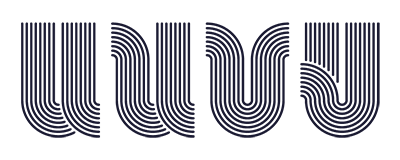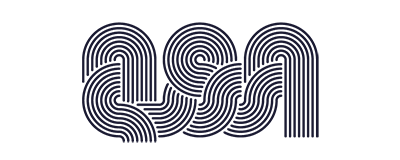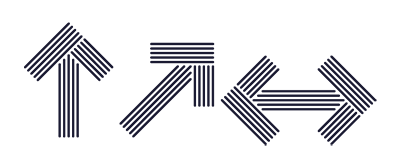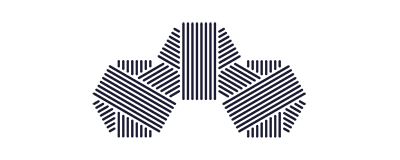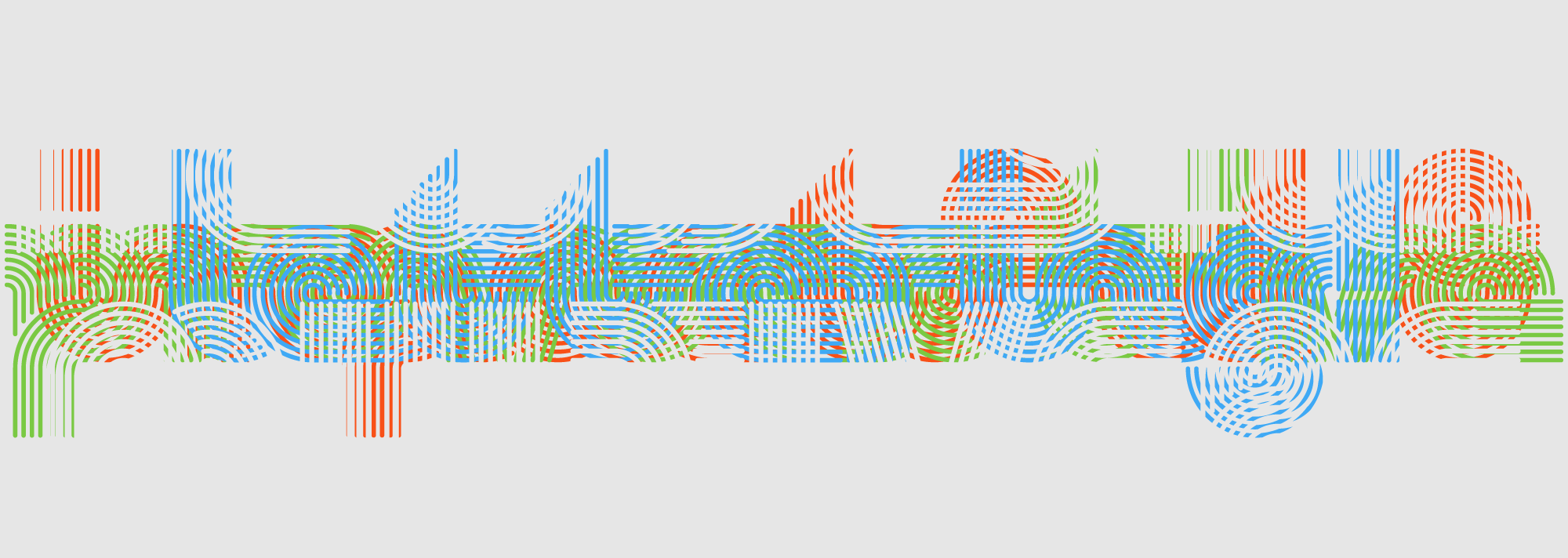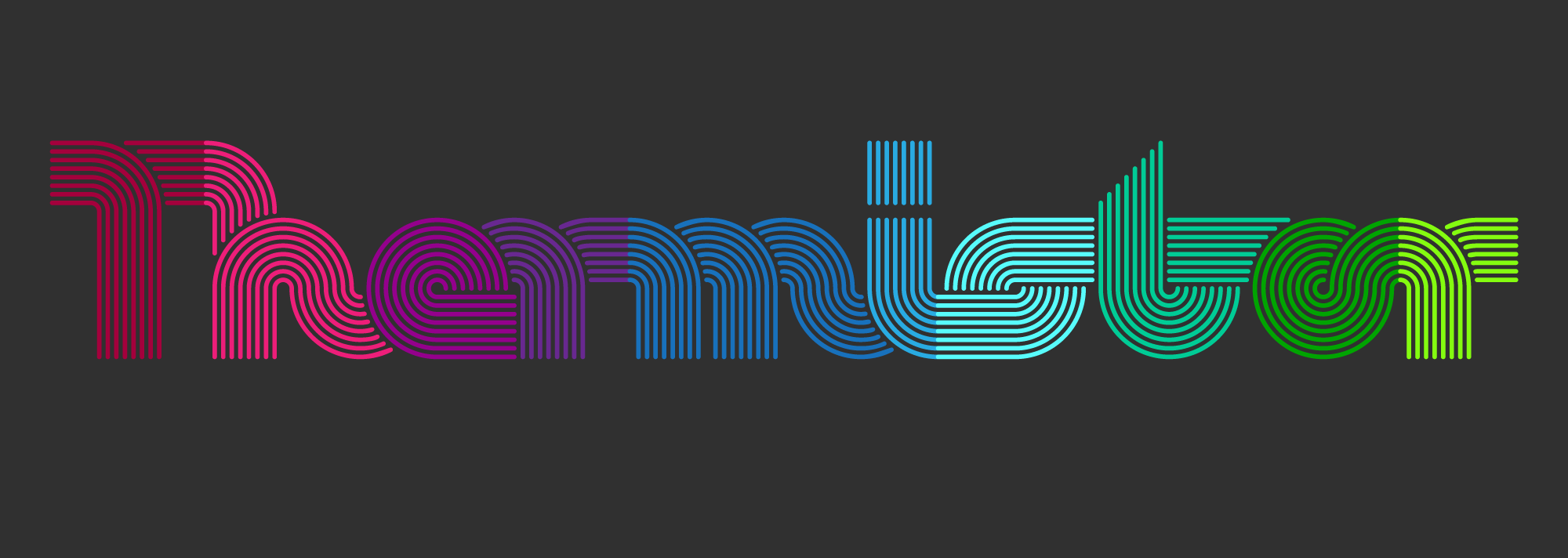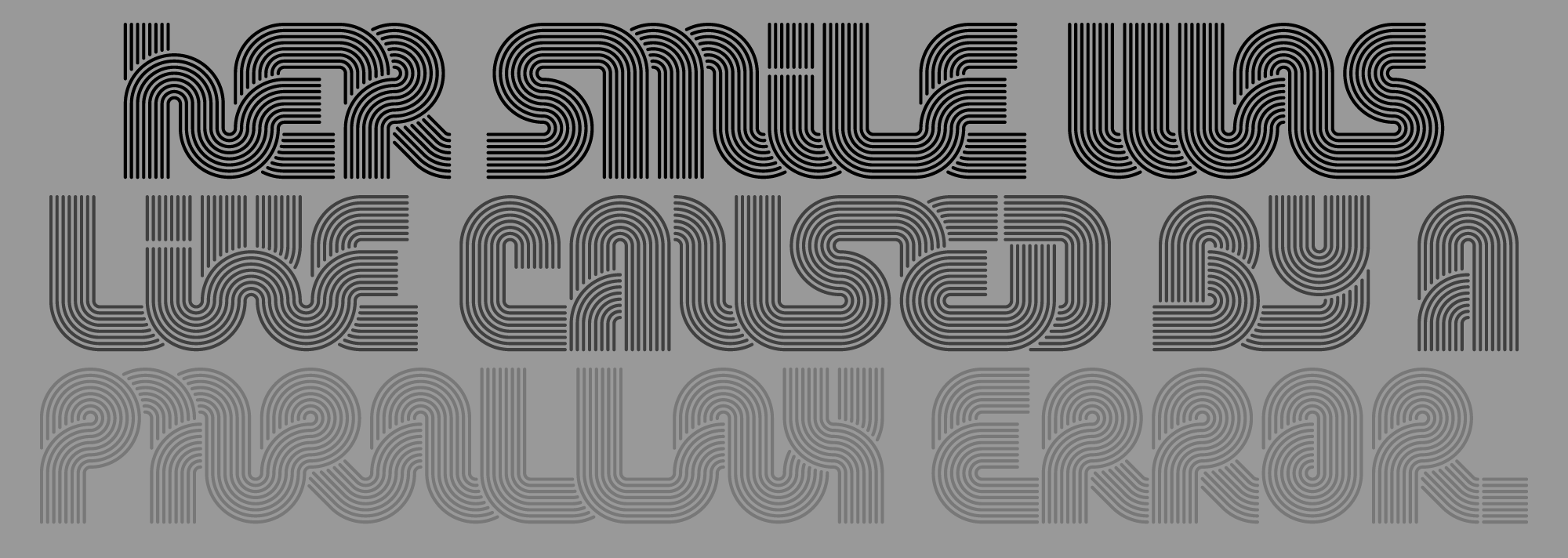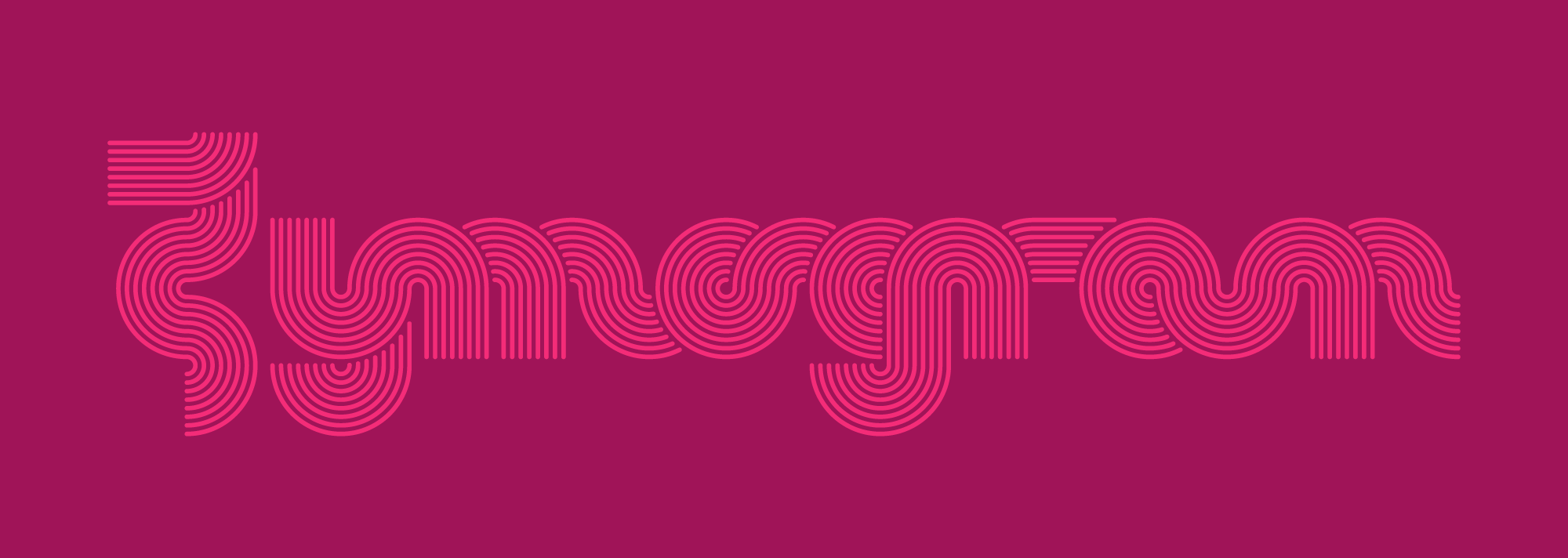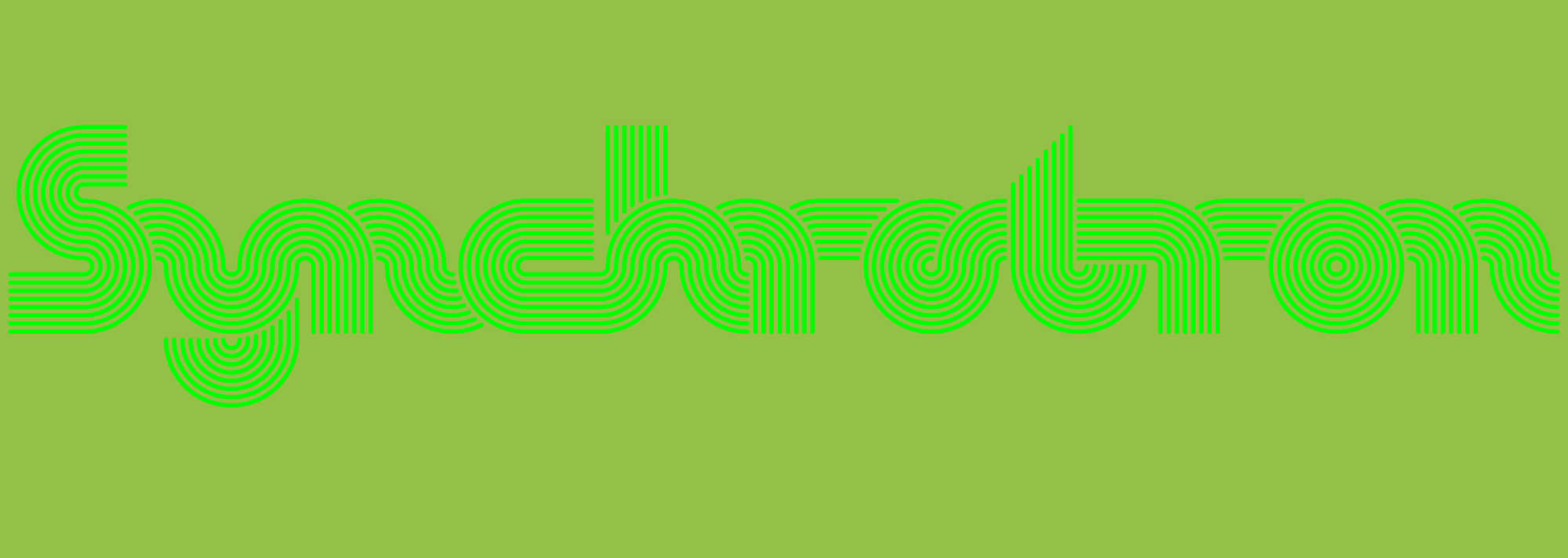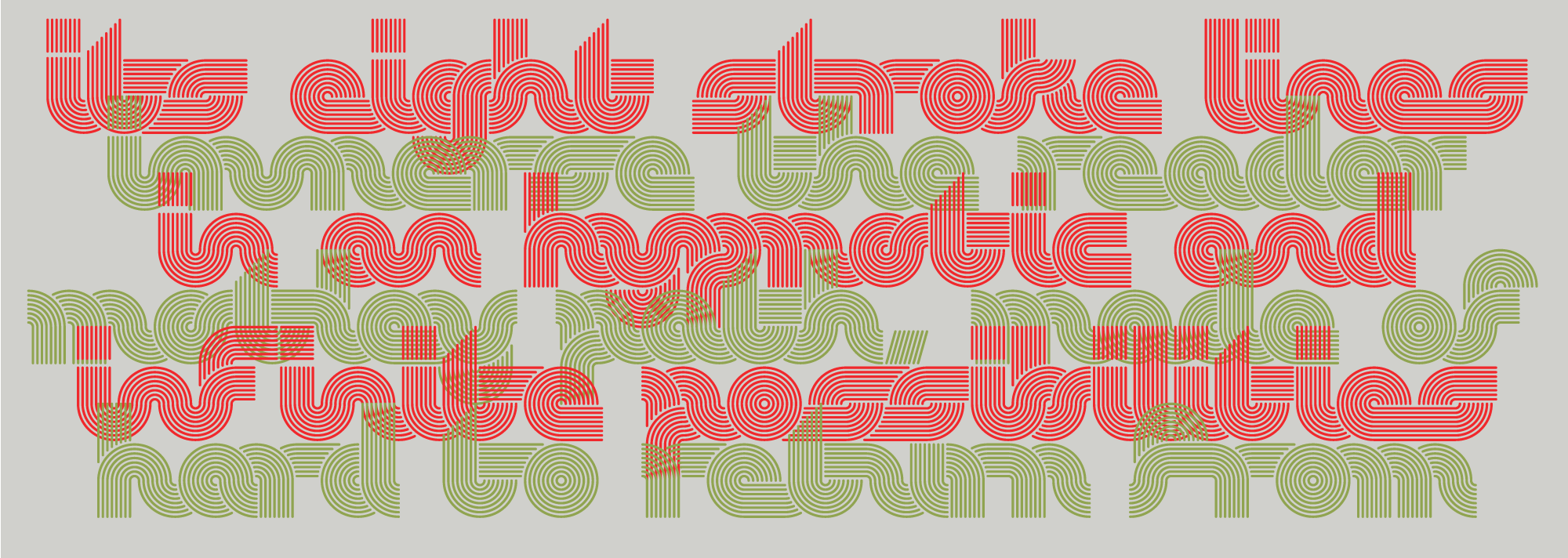
Octothorpe
SEVENTIES
mesmerizing
GLAMOUR
Smart tentacles
Φιλοσοφία
квантовый скачок
An intricate, dazzling, high-powered display font
Based on Tony Wenman’s font Stripes (released by Letraset in 1972), Octothorpe is a smart typographic tool that lets you design impactful, provocative pieces of digital lettering. Octothorpe’s eight-lines stroke immerses the reader in a hypnotic and variegated path, made of infinite possibilities, from which it is difficult to return. If you are not a visual artist, or a designer, or simply not a font enthusiast, you’d better ignore this font!
Octothorpe
Characteristics
Styles
Octothorpe
Octothorpe PanEuro
Features & Specials
Alternates
Contextual alternates
Case sensitive forms
Ligatures
Connectors
Connected uppercase [calt]
Connected lowercase [calt]
Extensions
Isolated forms
Swashes
L + apostrophe glyph
Ampersand
Long s
Interrobang
Número
Asterism
Greek
Cyrillic
Extended currencies
Old style figures
Lining figures
Tabular old style figures
Tabular lining figures
Fractions
Extended fractions
Superiors
Inferiors
Command icon
Arrows
Pilcrow sign
Manicule
Heart icon